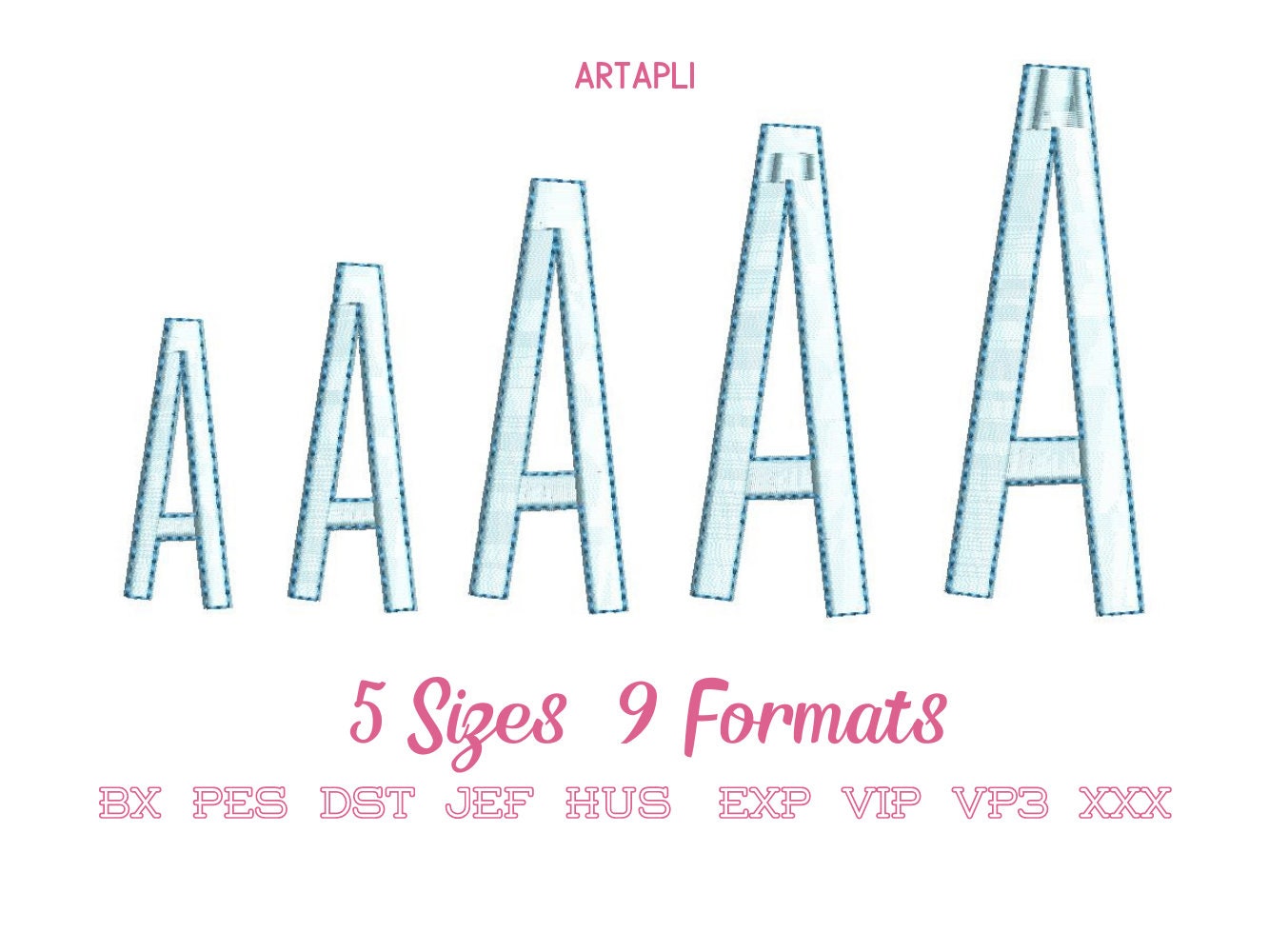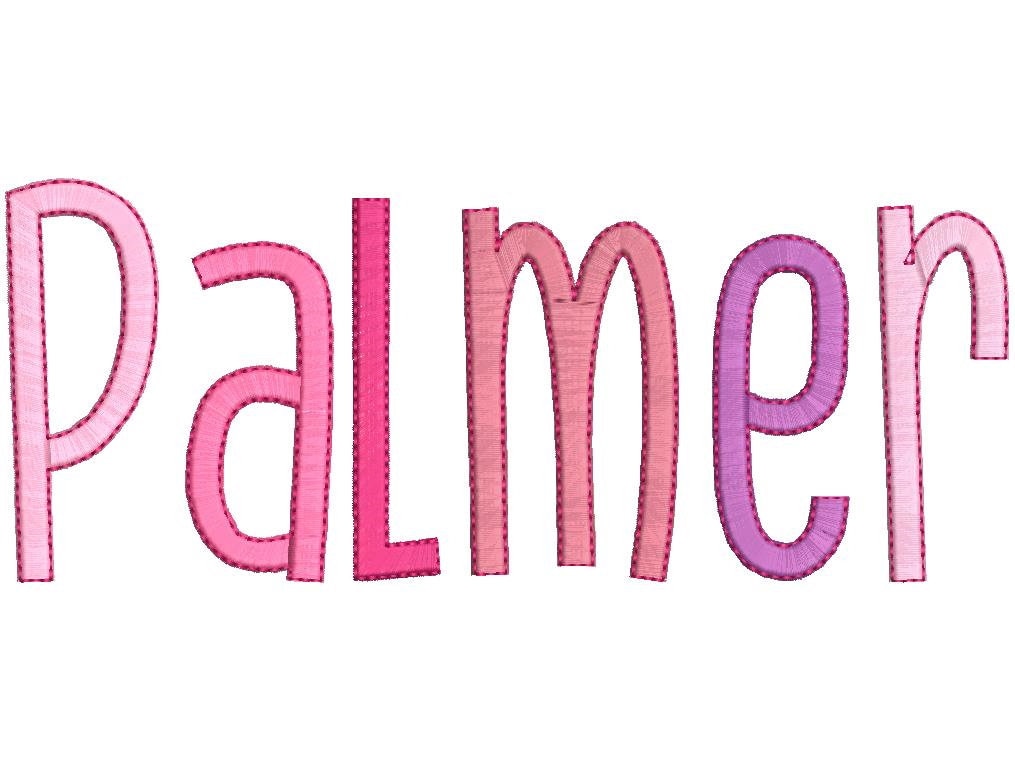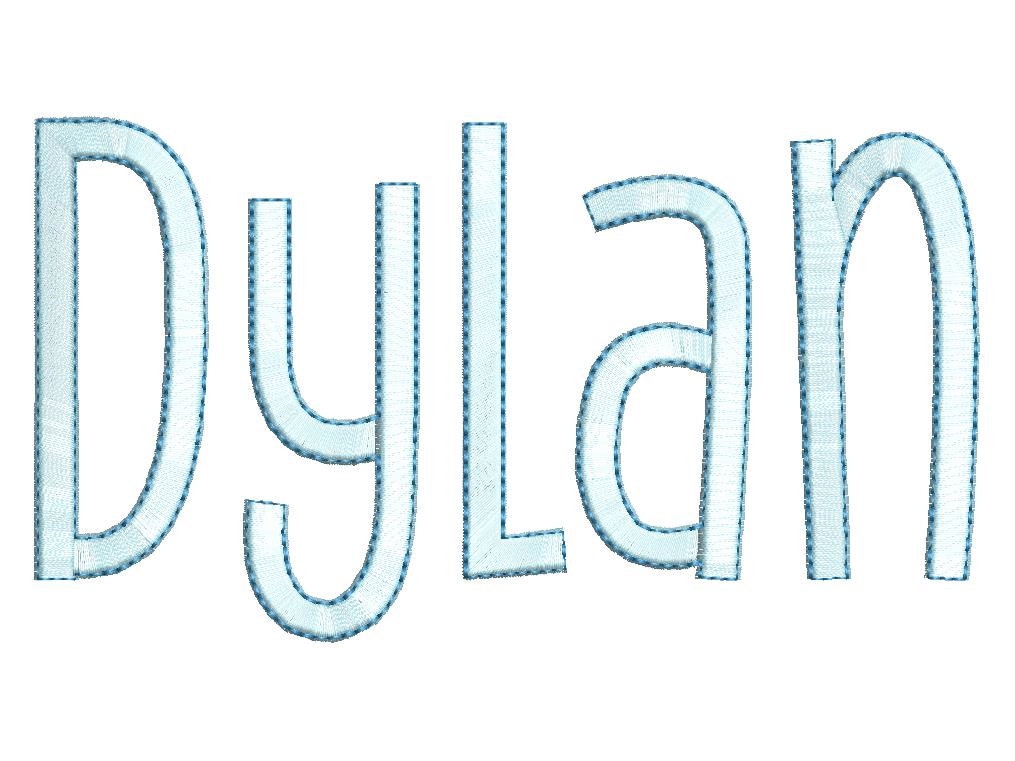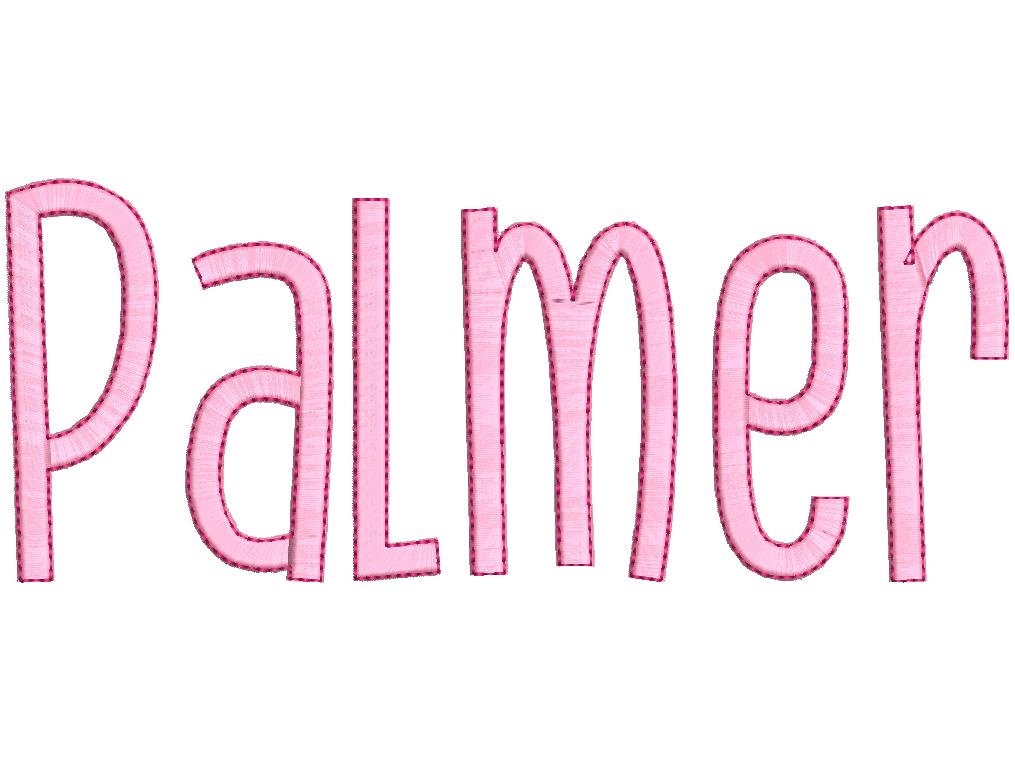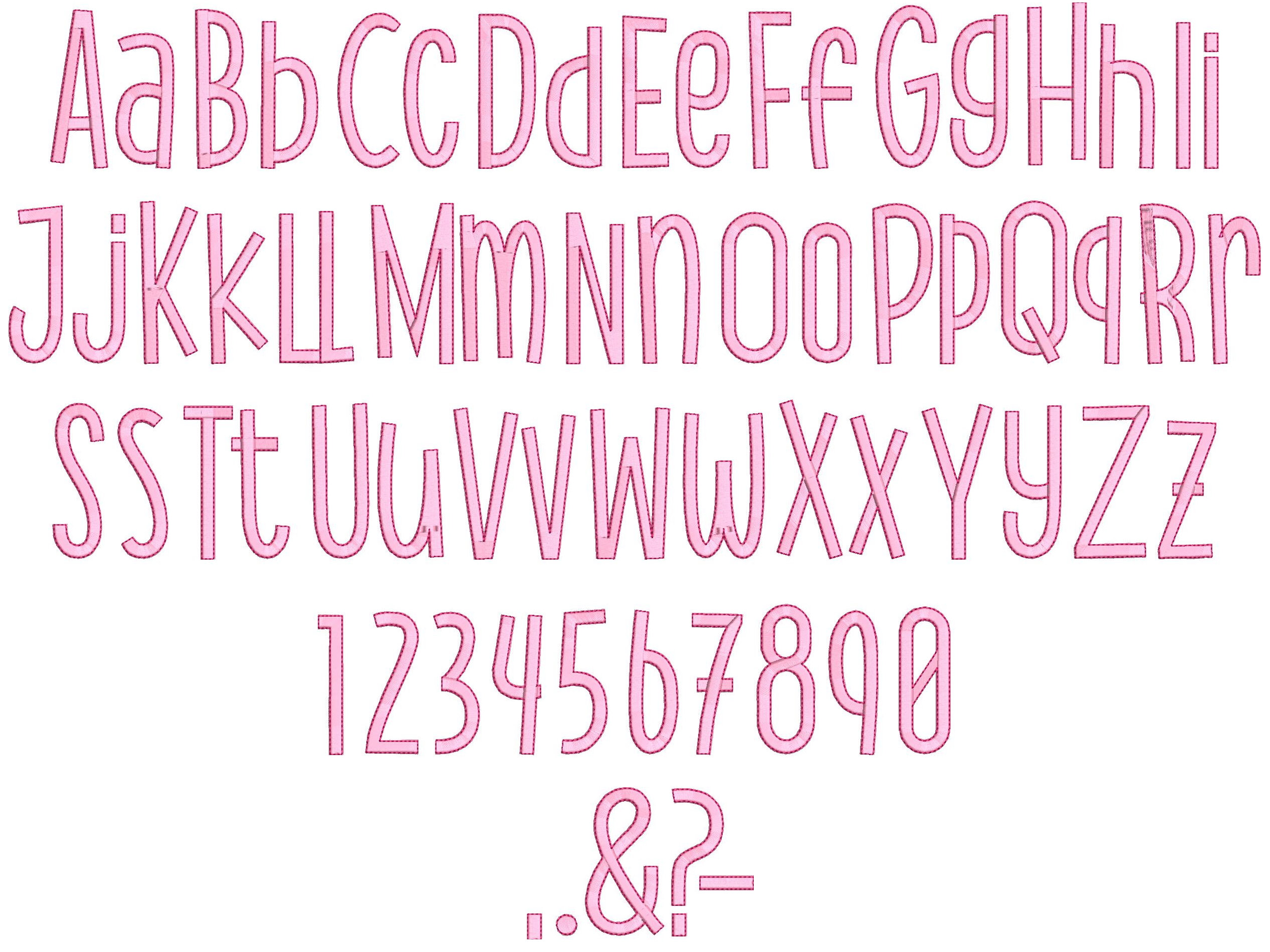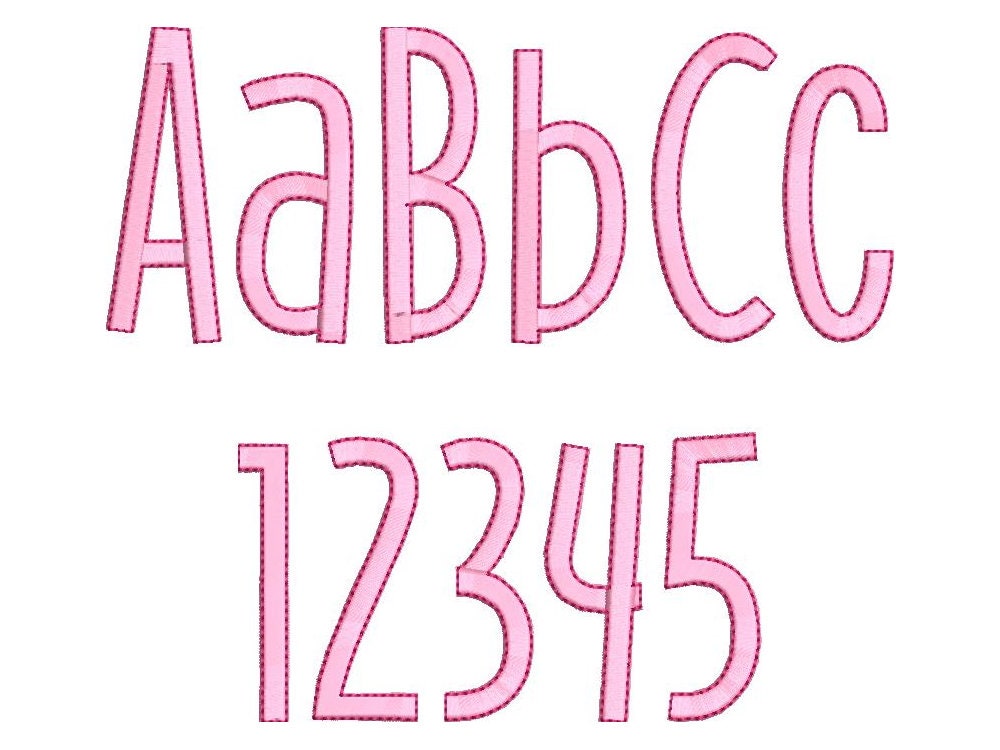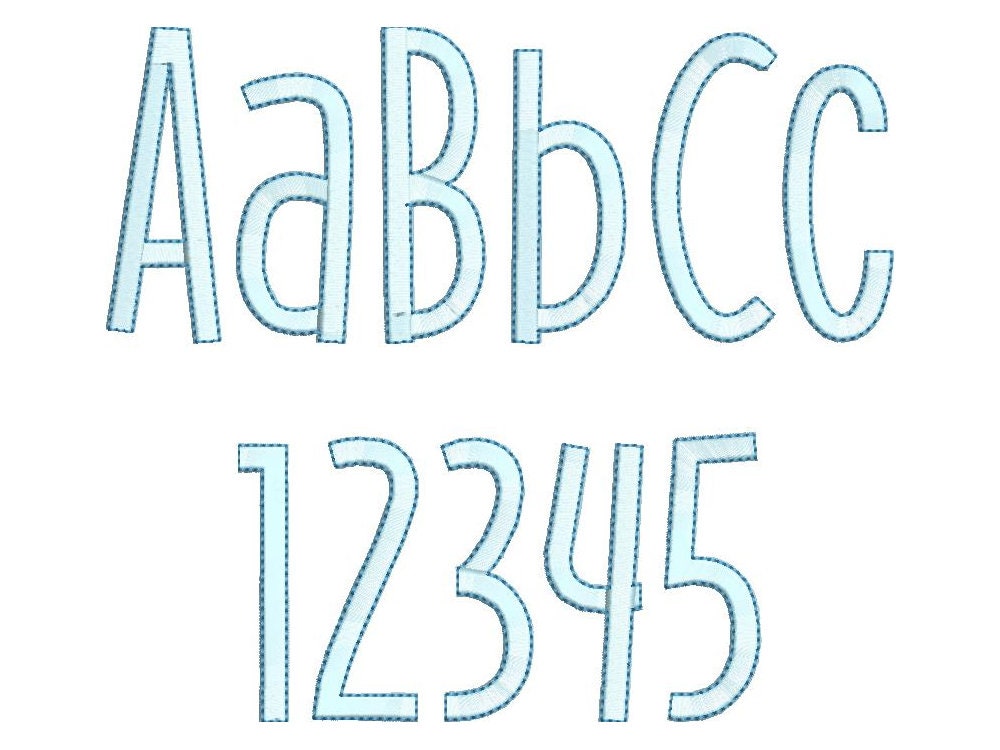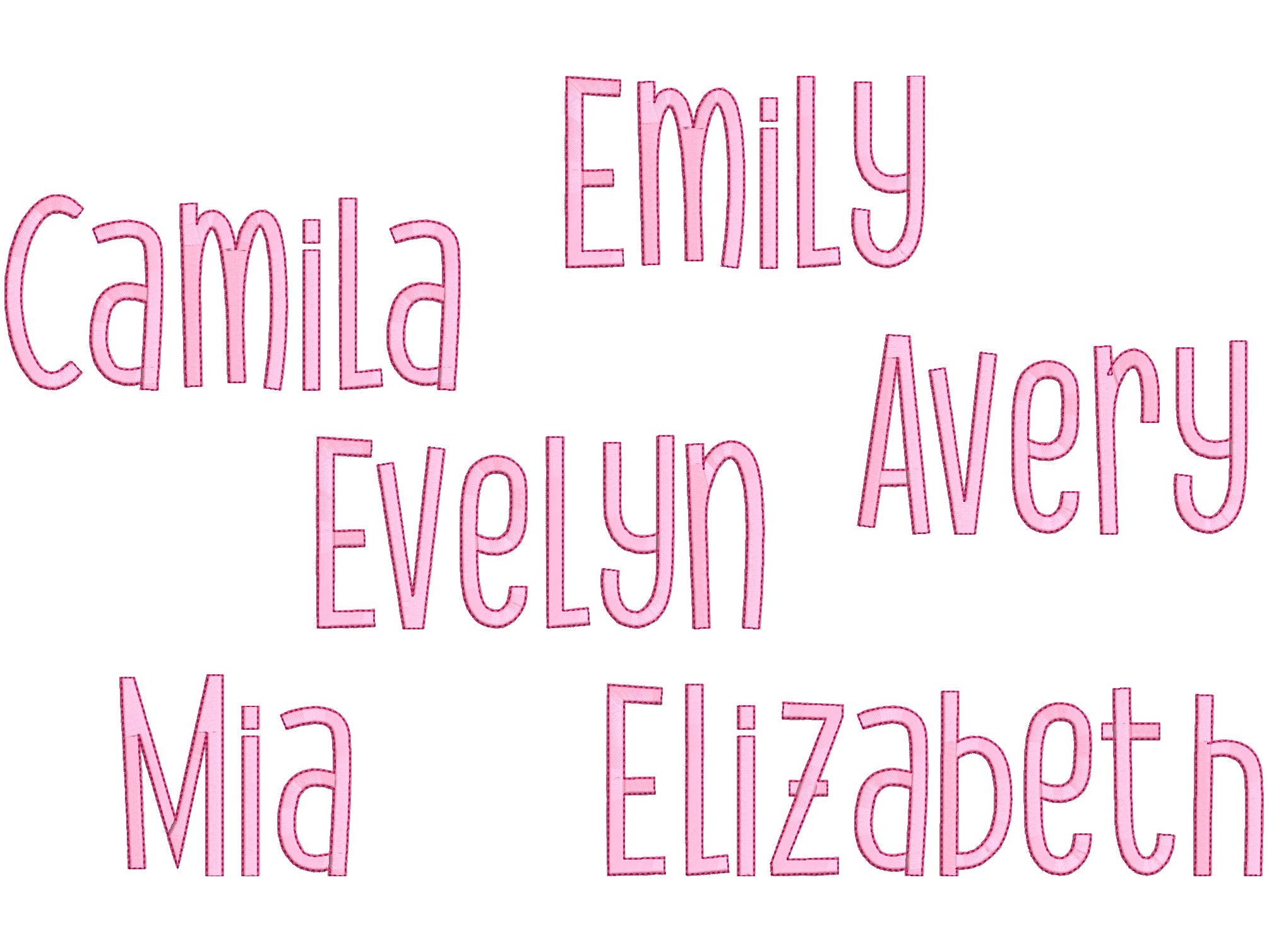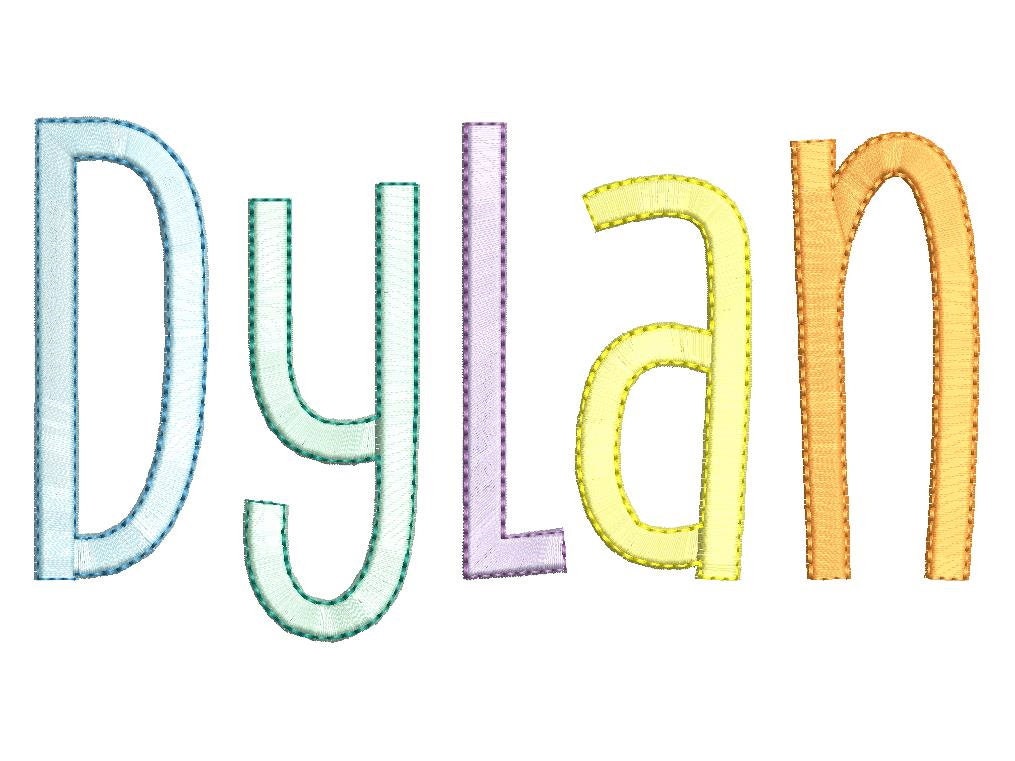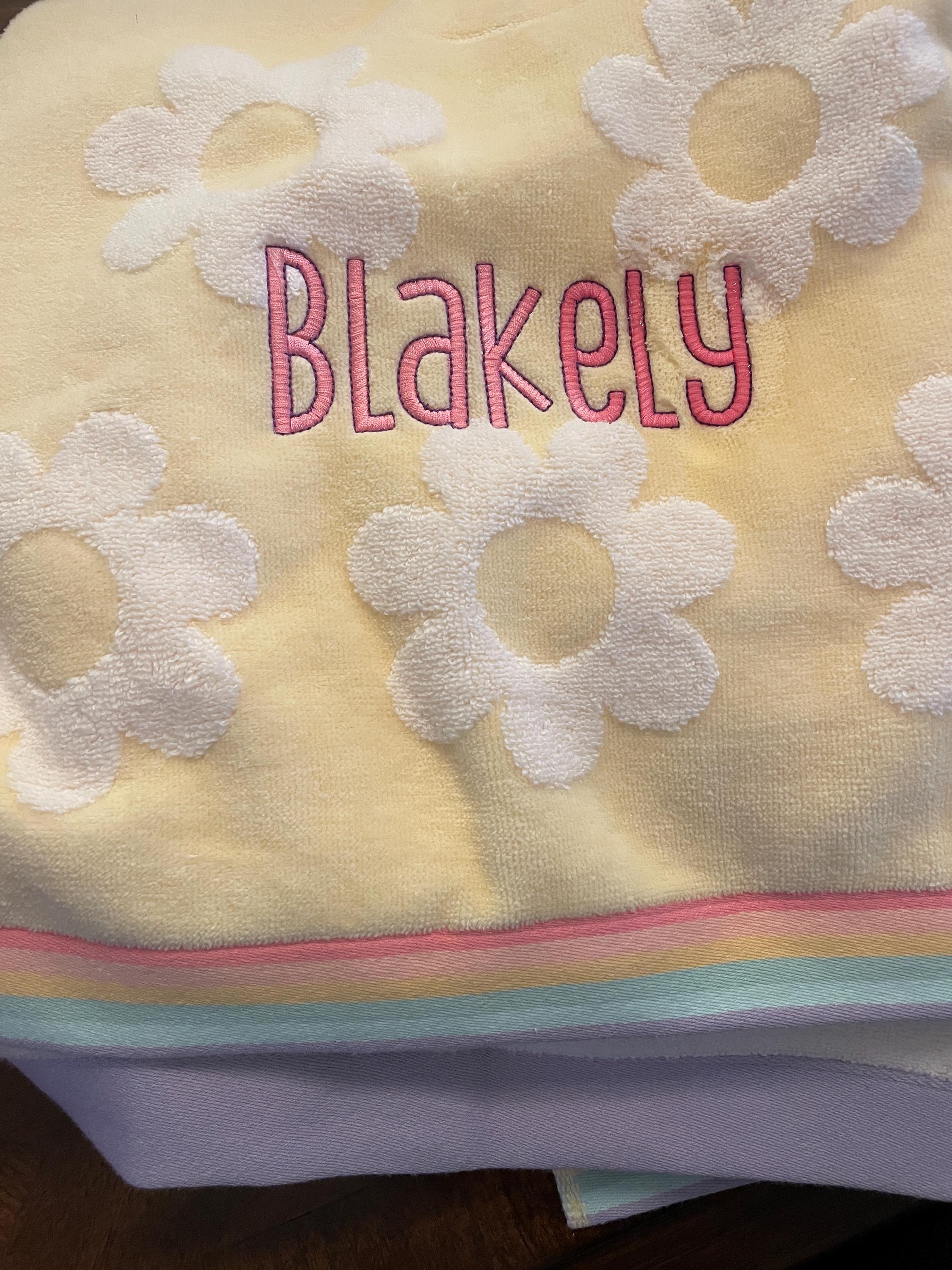
Satin stitch and outline Thin Tall Font alphabet playful kids baby monogram name, machine embroidery designs assorted sizes, BX included
Whole alphabet A-Z uppercase and lowercase letters, numbers and special marks & . , - ? !